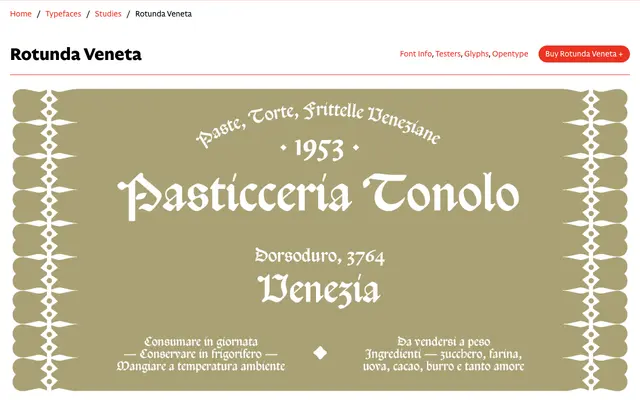
Rotunda Veneta
CAST · Riccardo Olocco · 2020
A scholarly revival of Nicolas Jenson's 1474 rotunda type, designed by Riccardo Olocco for both text and display use.
Based on the larger of Jenson's two rotunda sizes — his 106G type used in the 1475 Decretales — the design extends the original's incomplete Latin alphabet by sourcing missing letterforms from Erhard Ratdolt's Jensonian types and Ratdolt's early Venetian numerals. OpenType historical forms include long-s ligatures (sb, sl, ss, st), a contextual round r, and a Tironian r in place of the ampersand. Unusually, the face requires no kerning pairs, a property Olocco attributes to the calligraphic origins of gothic capitals.
Rotunda Veneta is a digitisation of a 15th-century Southern Textualis type, specifically a rotunda — the formal book hand of southern Europe — as cut by Nicolas Jenson in 1474. Rotunda is a distinct branch of the blackletter family, characterised by rounder, less angular forms than Textura.